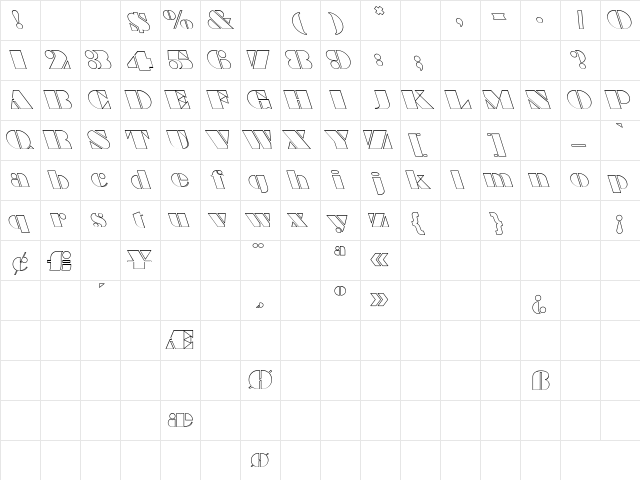
MBragg Outline Hollow Regular
Design Context for MBragg Outline Hollow Typeface
MBragg Outline Hollow is built around its visual character rather than neutral utility — its distinctive forms are designed to make an impression at display sizes.